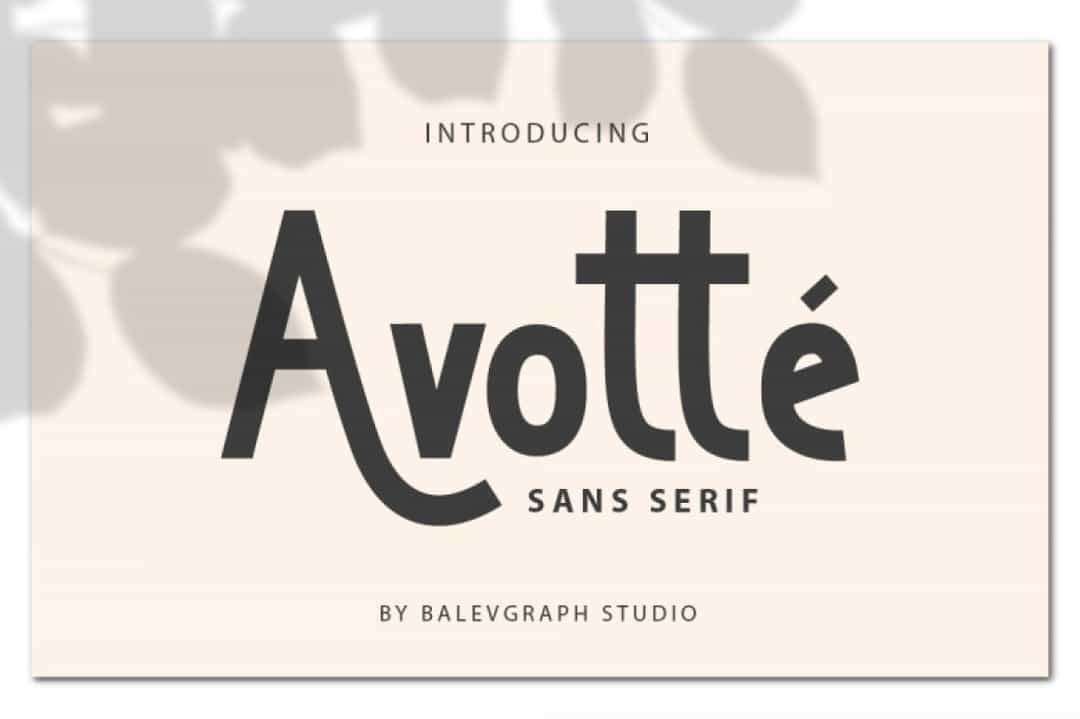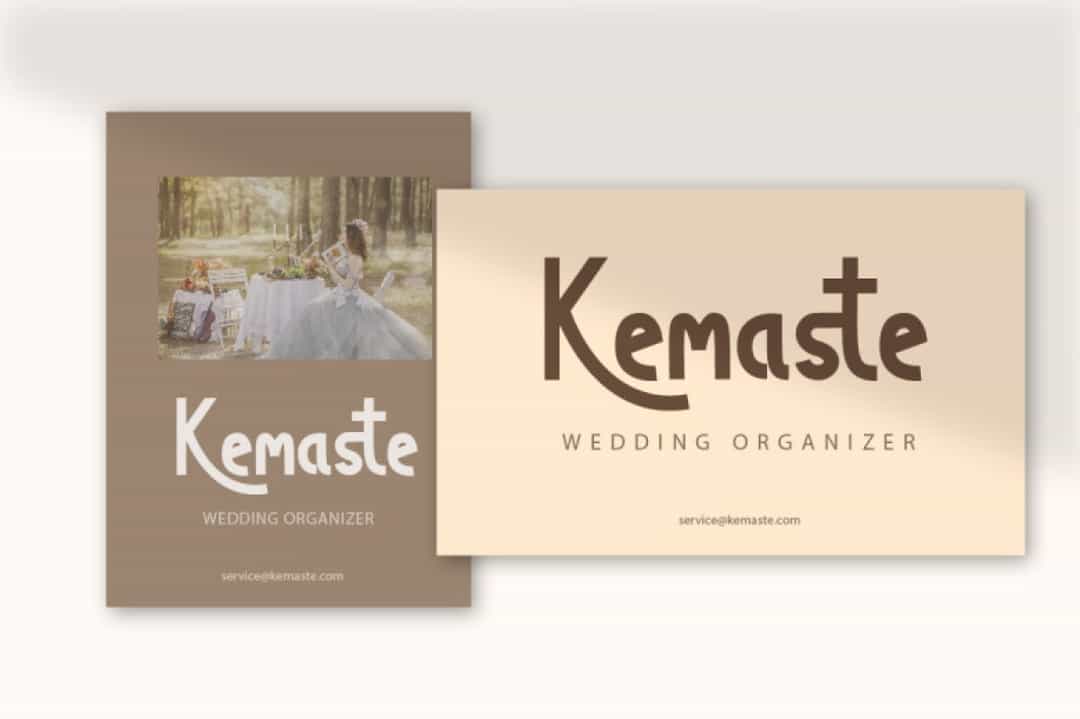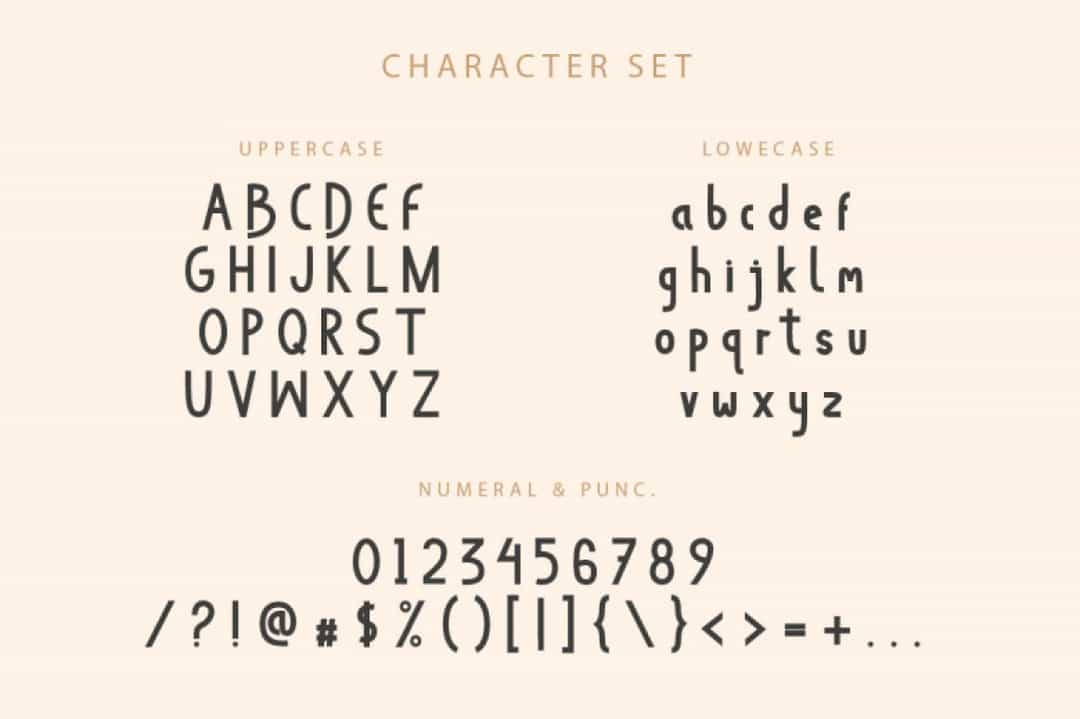
Avotte is a modern and clean sans serif font that is suitable for creative purposes including wall arts, brand advertisements among others. This font was specifically created to be used across any branding/business need including logos, clothing, skateboards, etc, depending on the need that you have.